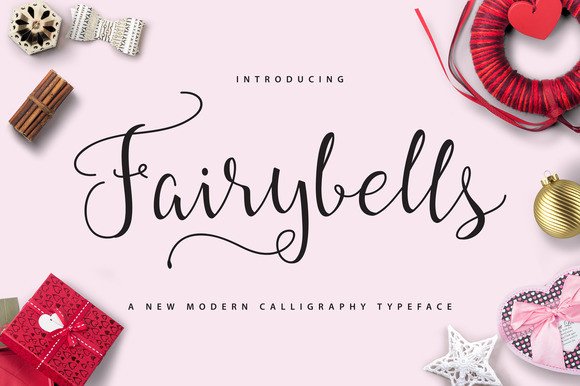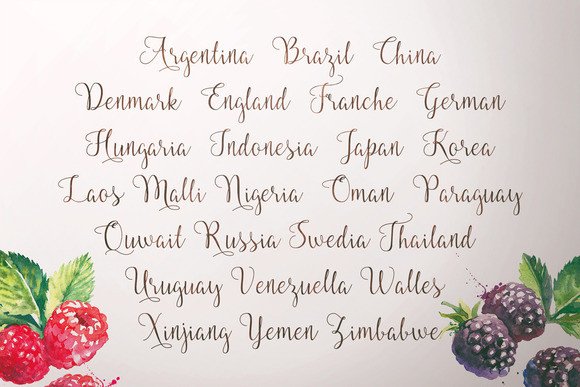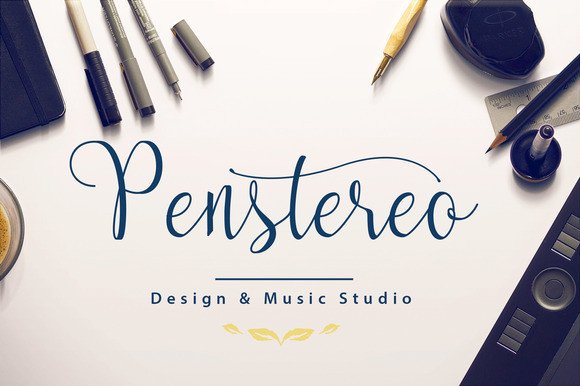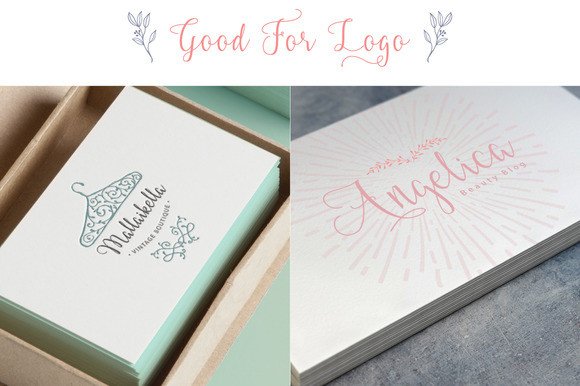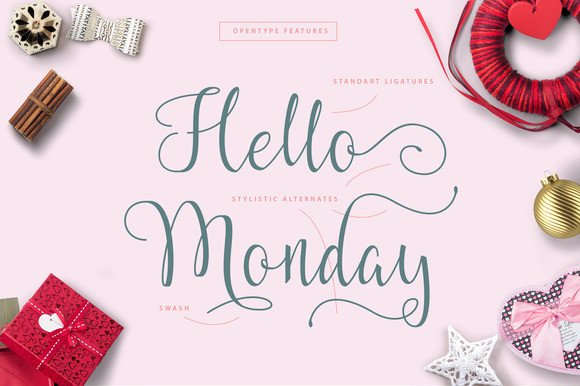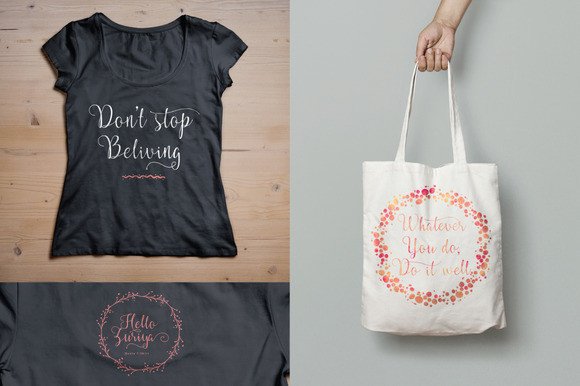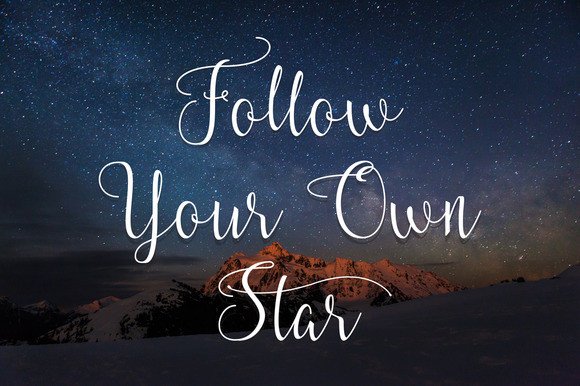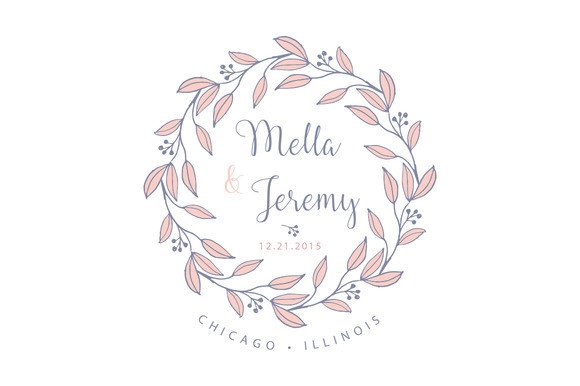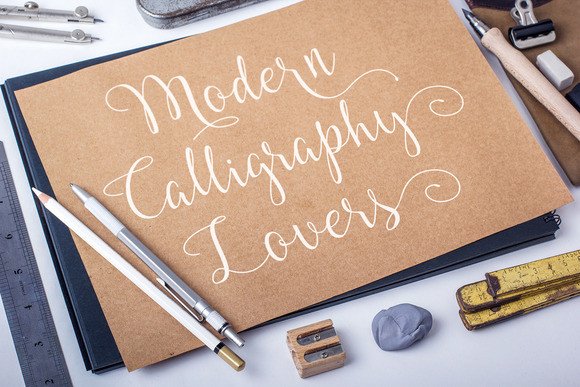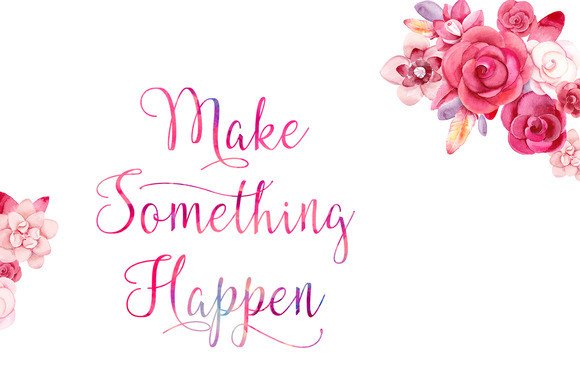
Fairybells Font
About Fairybells Font
Fairybells is a new, modern calligraphy typeface with a classic and elegant touch.
Can be used for various purposes. such as headings, logos, wedding invitations, t-shirts, letterheads, signage, labels, news, posters, badges, etc.